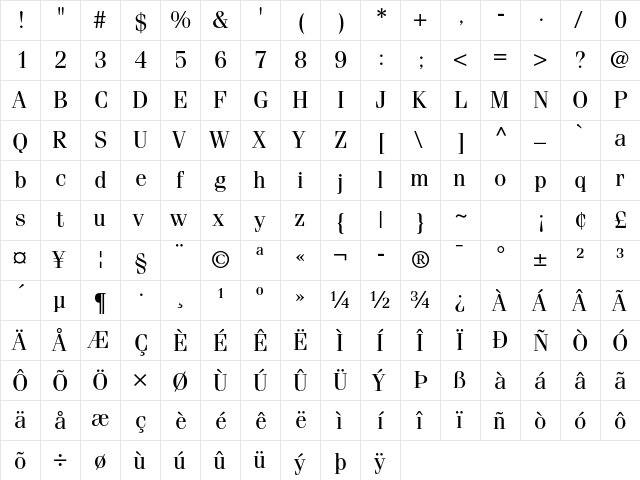
ITC Fenice Std Regular
| Designer | Aldo Novarese |
Design Context for ITC Fenice Std Typeface
ITC Fenice Std takes a measured approach to typography — its balanced proportions and neutral character make it a reliable workhorse for both digital and print work.